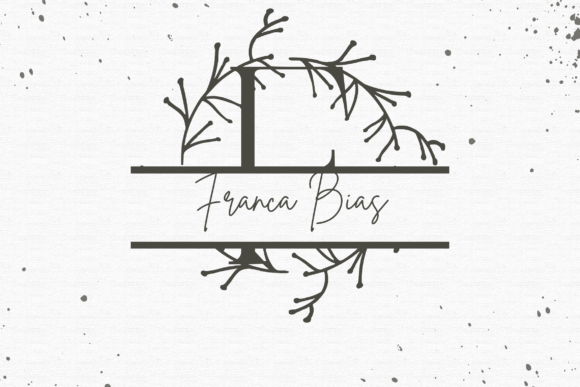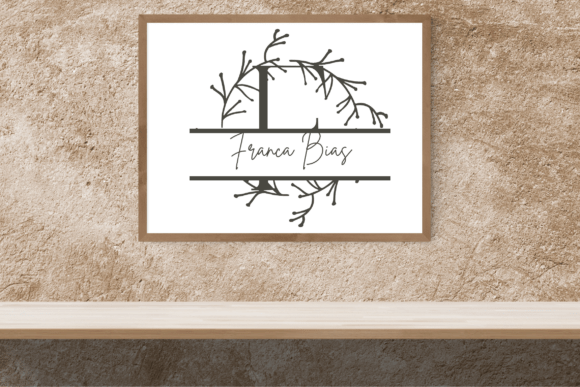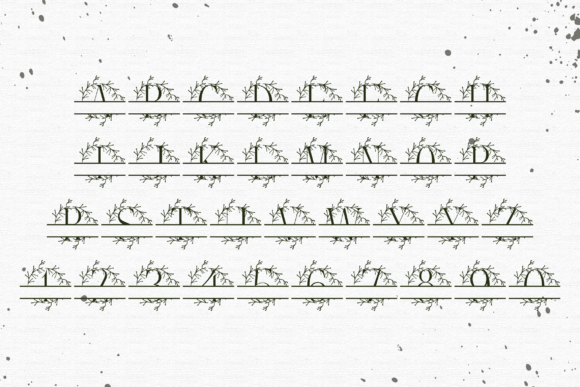
The Elegance of Greenquill Split Monogram Font
I’ll never forget the time I was working on a wedding invitation project, and my client asked for a monogram font that exuded elegance and sophistication. I scoured the internet, tried countless fonts, but nothing seemed quite right. That was until I stumbled upon the Greenquill Split Monogram Font. It was love at first sight! 💕 The combination of leafy accents, serif elegance, and split design for personalization was exactly what I needed. In this article, I’ll share my experience with this beautiful font, its features, and how to make the most of it in your design projects.
- ✨ Elegant leafy accents that add a touch of organic beauty to any design
- ✅ Sophisticated serif font with a timeless feel
- 💯 Split design allows for easy personalization with names, dates, or custom text
- 🎨 Perfect for weddings, branding, signage, and Cricut projects
While Greenquill Split Monogram Font is a stunning addition to any design project, there are a few things to keep in mind:
- ⚠️ The font’s OpenType features may not work seamlessly on all platforms or software. Be sure to check compatibility before use.
- 🤔 Some users may find the leafy accents a bit too ornate for certain projects. Experiment with different sizes and colors to find the right balance.
The Greenquill Split Monogram Font was inspired by the classic elegance of traditional serif fonts, combined with the organic beauty of botanical illustrations. The designer aimed to create a font that would evoke the feeling of luxury and sophistication, while also being approachable and natural.
A: The best way to use Greenquill Split Monogram Font is to experiment with different sizes, colors, and arrangements to find the perfect balance for your design. Try pairing it with simple backgrounds and bold typography for maximum impact.